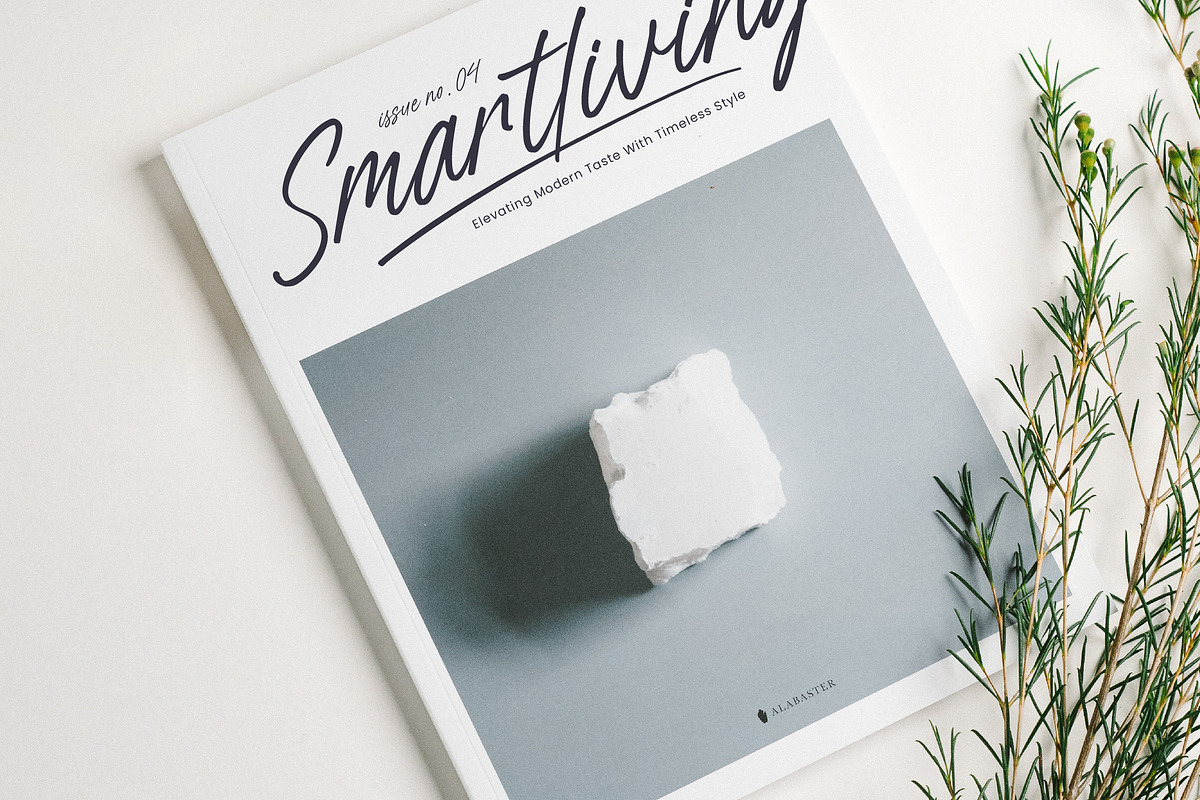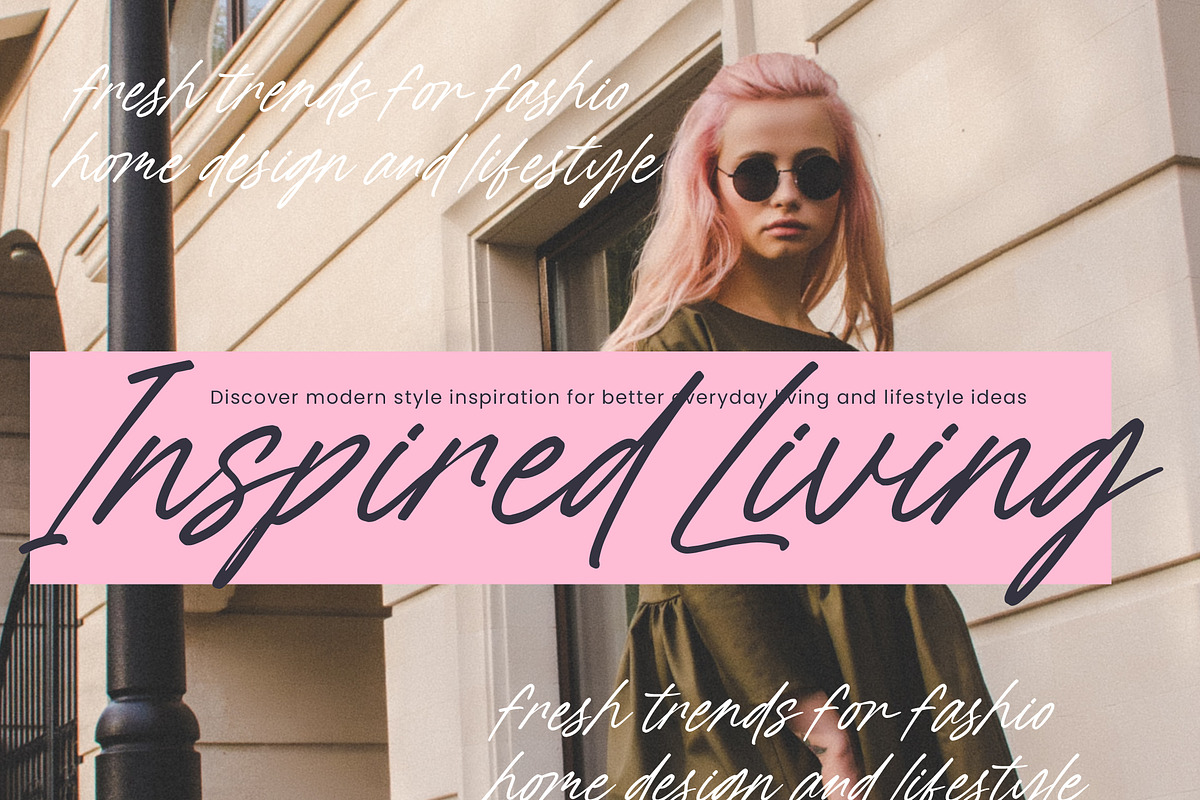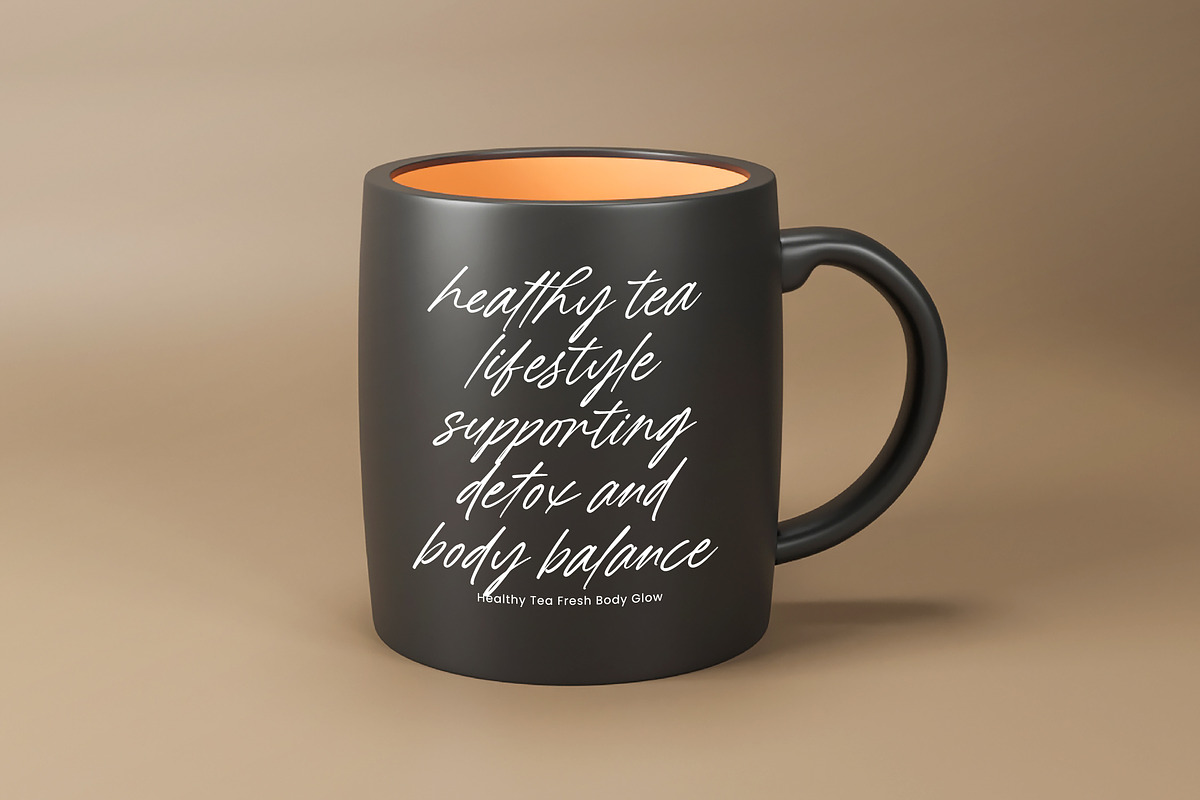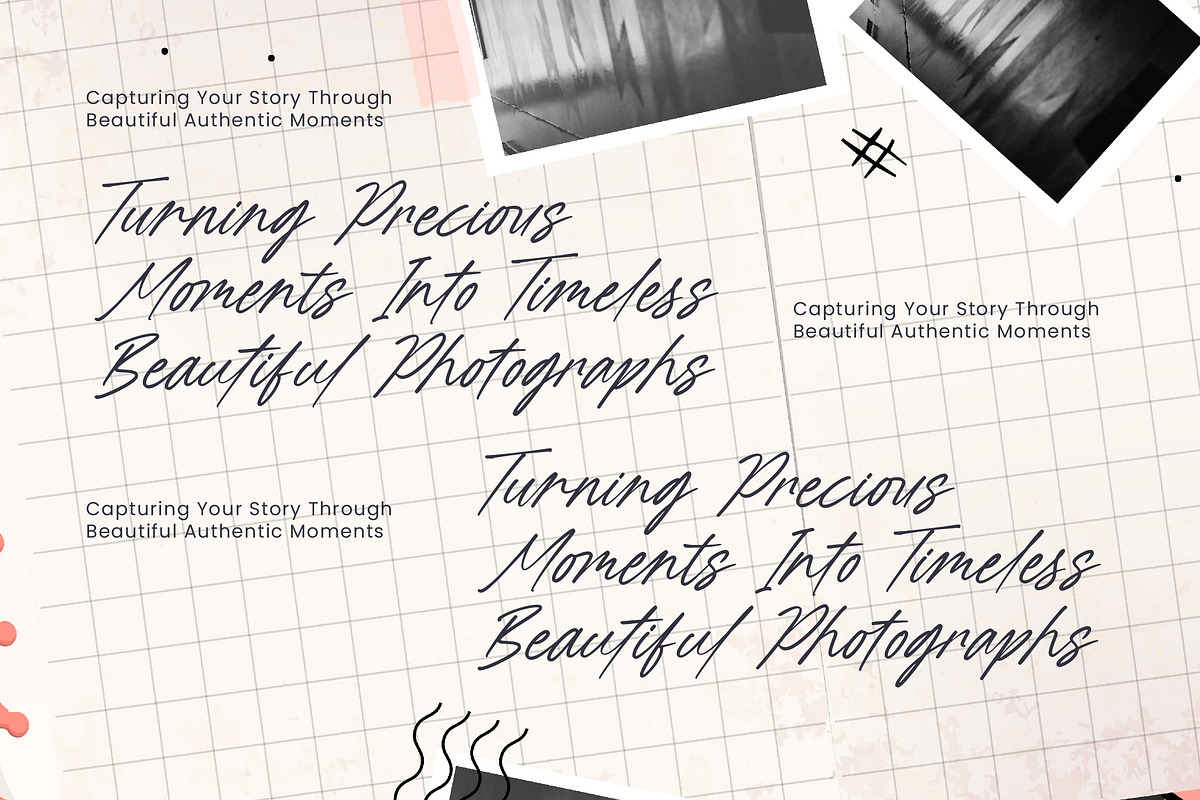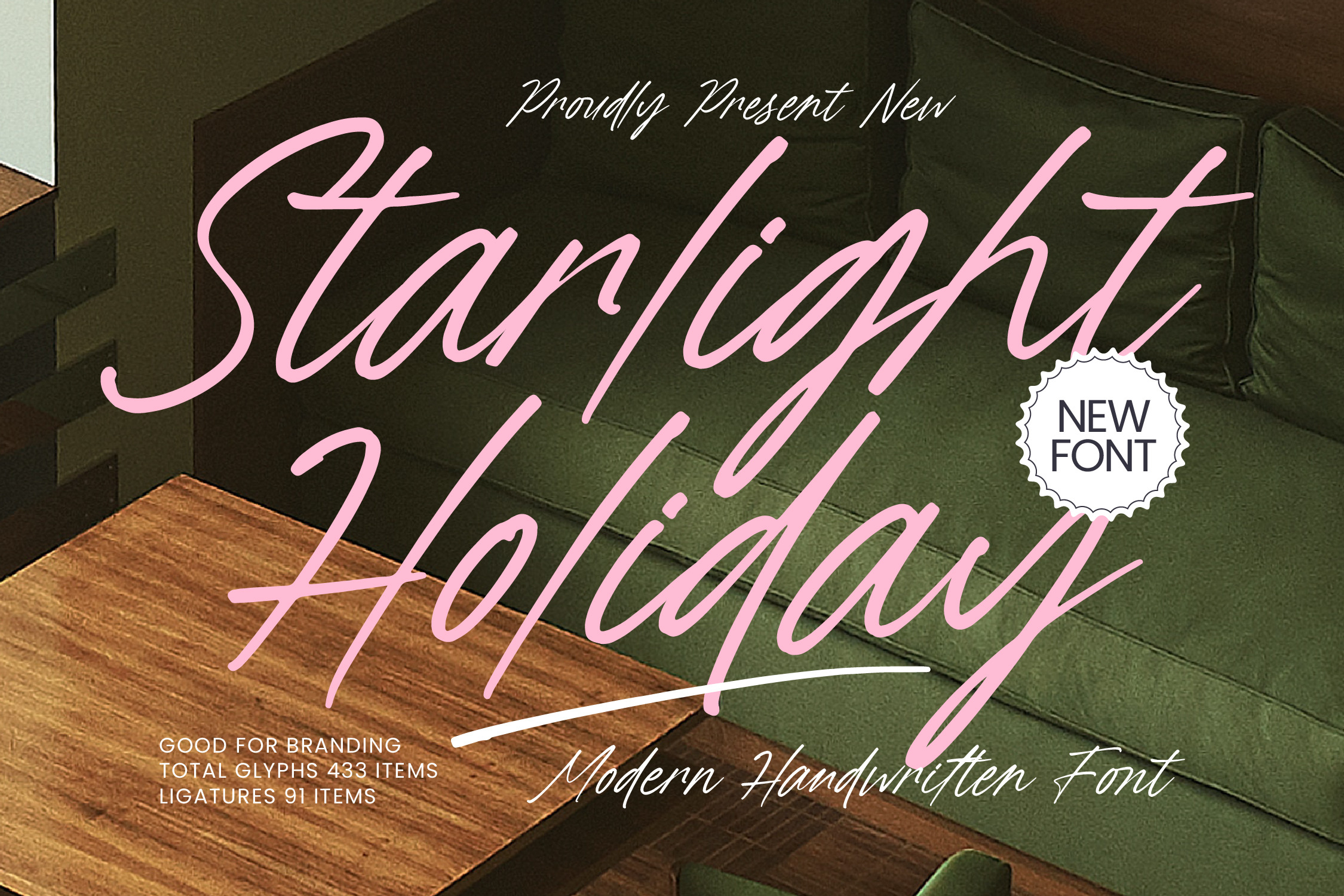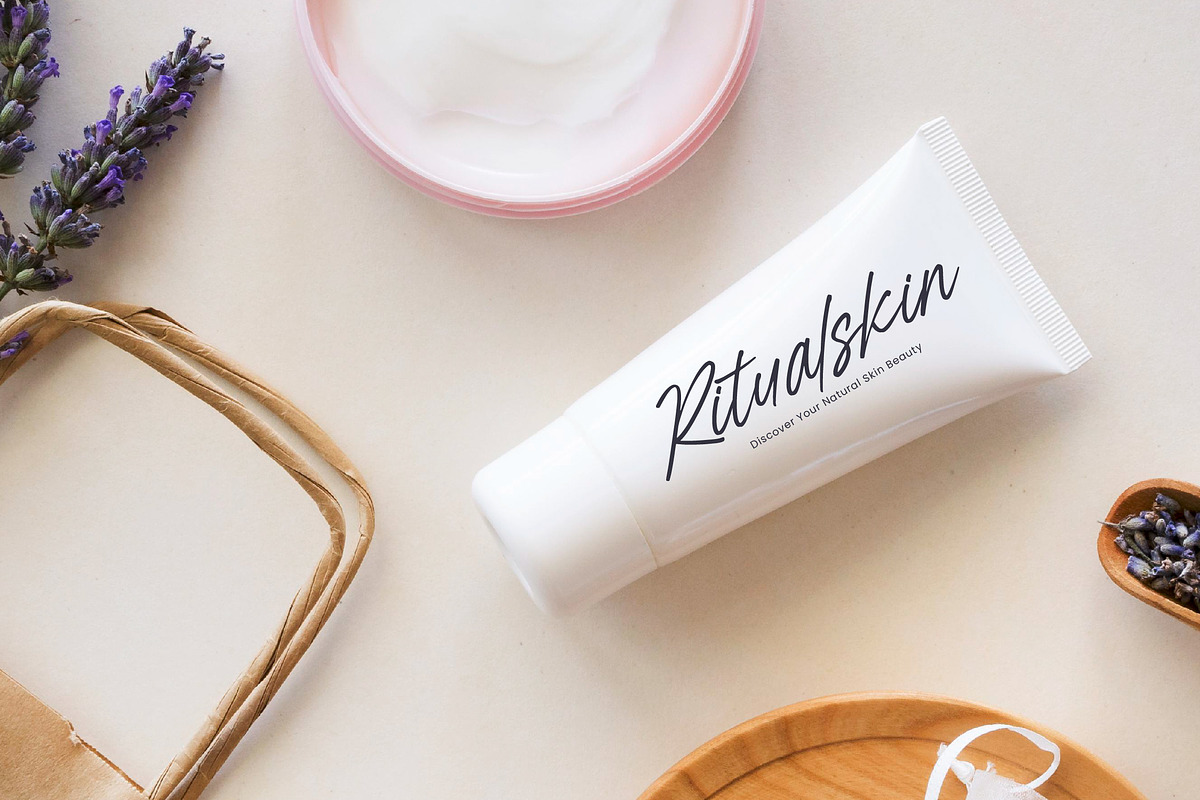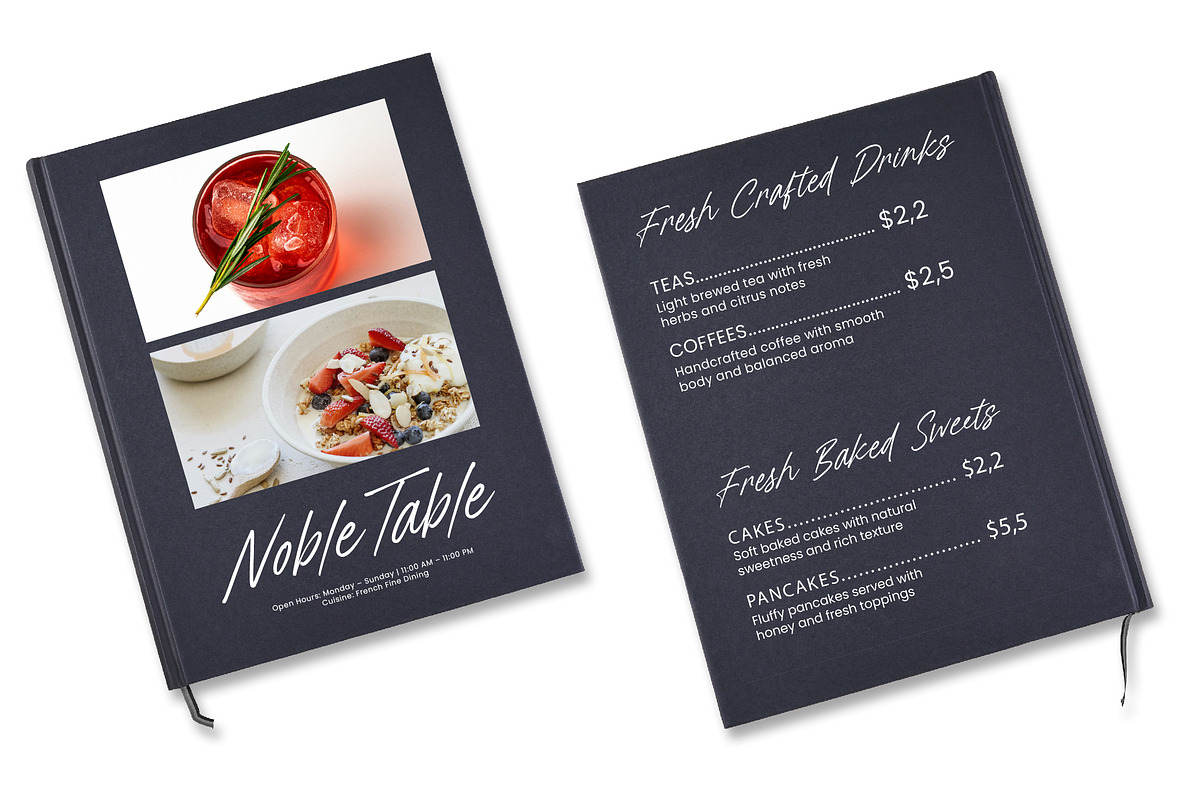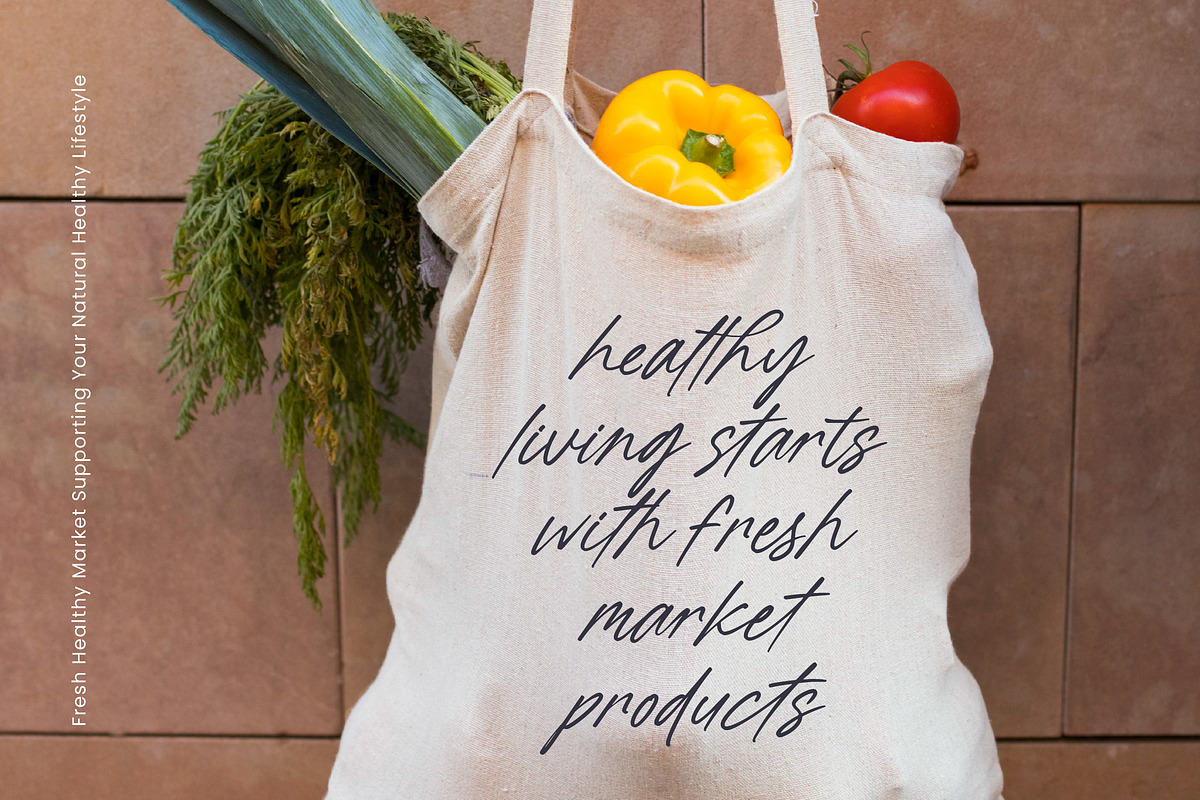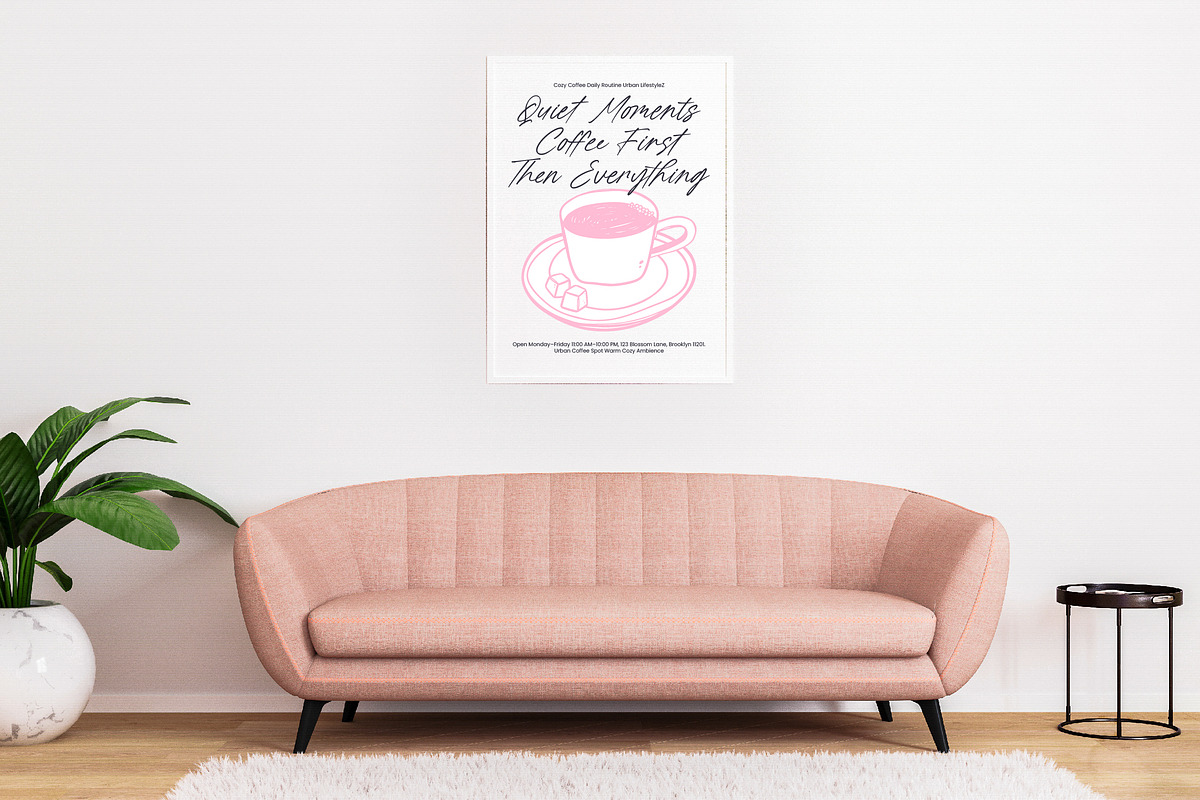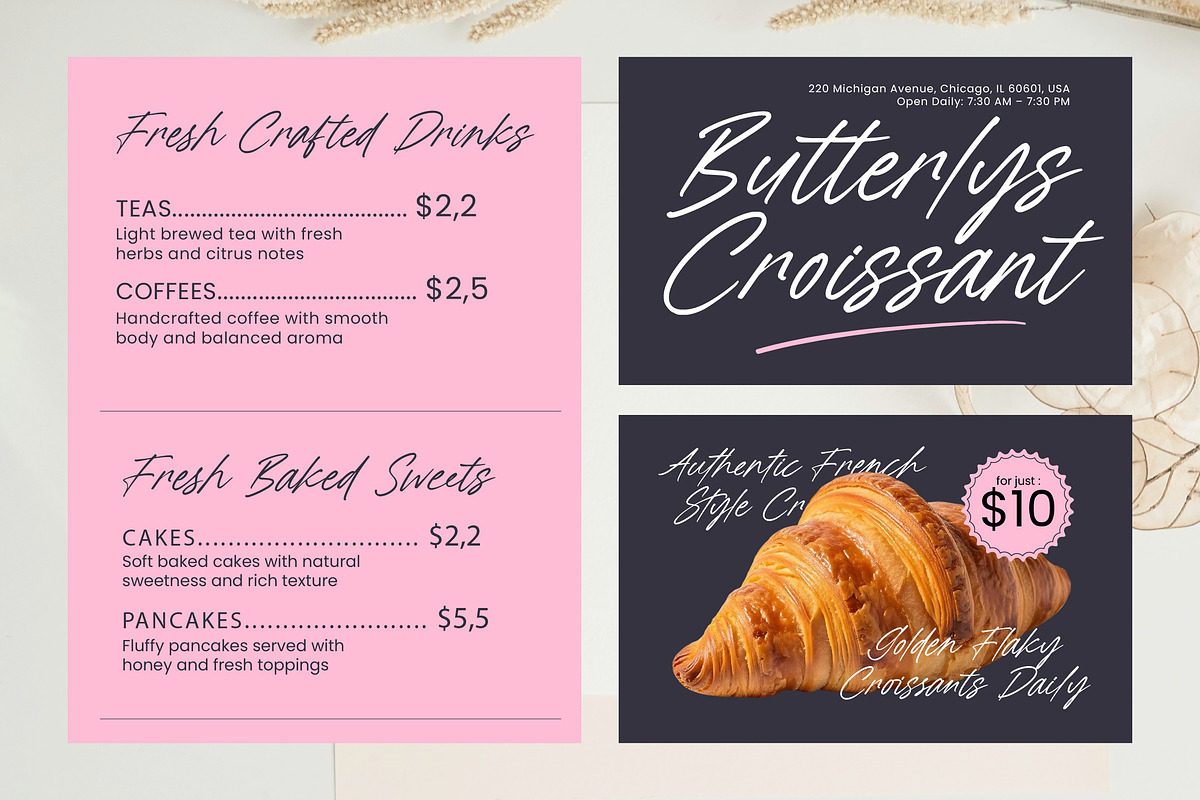
Starlight Holiday Handwritten Font
Starlight Holiday - Modern Handwritten Font , Elevate your creative vision with the stunning elegance of Starlight Holiday - Modern Handwritten Font. This modern handwritten font captures a unique blend of sophisticated script and expressive energy, making it an essential tool for designers seeking a bespoke aesthetic. With its fluid brush strokes and natural rhythm, Starlight Holiday - Modern Handwritten Font delivers a premium feel that instantly draws the eye and communicates authentic luxury.
Designed for maximum impact, this typeface is the perfect choice for a variety of high-end projects. Starlight Holiday - Modern Handwritten Font is ideal for luxury branding, premium packaging, and editorial design where personality is paramount. It excels in wedding stationery, social media graphics, and fashion advertisements, providing a tailor-made look that traditional fonts simply cannot replicate. Whether you are crafting a boutique logo or a signature header, Starlight Holiday - Modern Handwritten Font ensures your message is delivered with unparalleled style.
Professional versatility is at the core of this typographic masterpiece. With its extensive multilingual support, Starlight Holiday - Modern Handwritten Font adapts seamlessly across global markets, making it incredibly versatile for international projects. Boasting 433 glyphs and 91 ligatures, Starlight Holiday - Modern Handwritten Font offers the flexibility needed for dynamic layouts and customized text. The inclusion of stylistic alternates allows for a truly organic appearance, ensuring your compositions look handcrafted and distinctively professional.
Invest in a typeface that defines modern excellence and artistic flair. By choosing Starlight Holiday - Modern Handwritten Font, you are selecting a high-performance asset that bridges the gap between classic calligraphy and contemporary design. Its dynamic flow and clean legibility make it a top-tier solution for designers who refuse to compromise on quality. Add Starlight Holiday - Modern Handwritten Font to your digital toolkit today and transform your visual identity into a memorable brand experience.